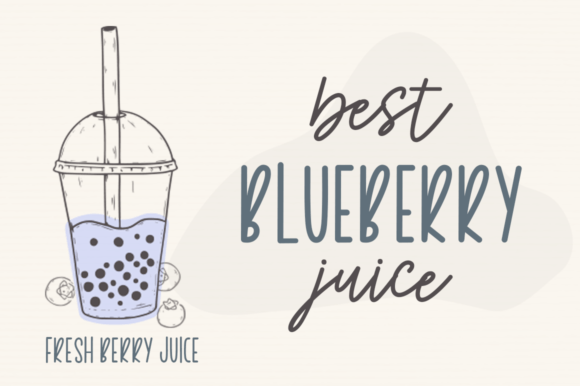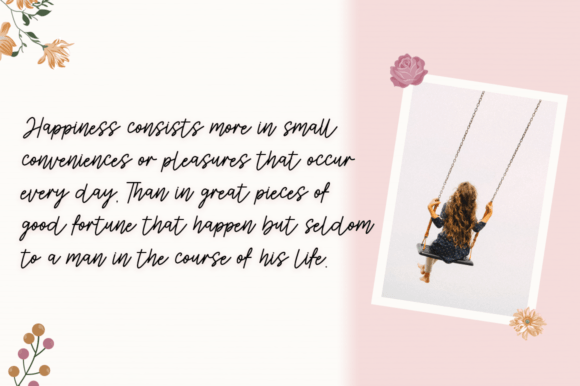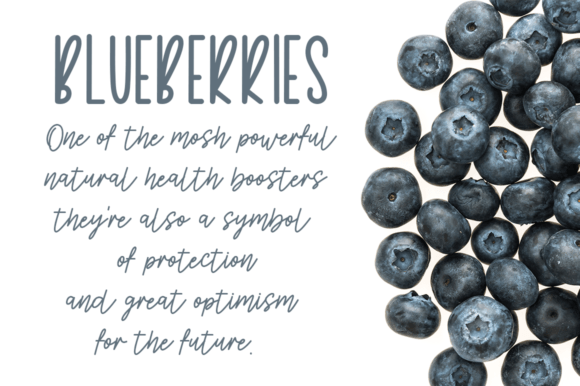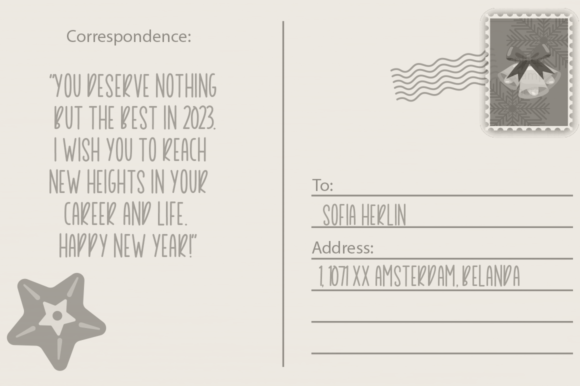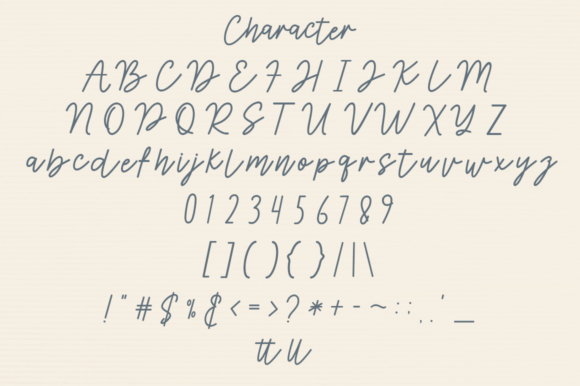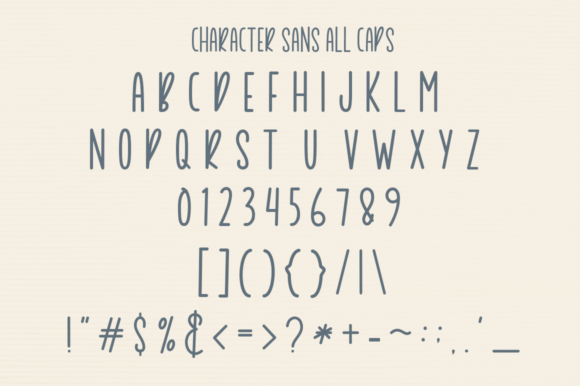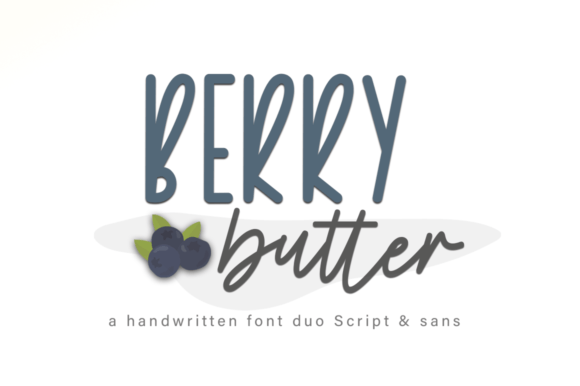
The Berry Butter Font: A Sweet Addition to Your Design Toolbox
Have you ever been working on a design project, and suddenly, you’re stuck on finding the perfect font? I recall a recent experience where I was creating a set of thank you cards for a craft fair, and my usual go-to fonts just weren’t cutting it. That’s when I stumbled upon the Berry Butter font, a cute and unique handwritten and sans serif duo font that instantly elevated my designs.
An Honest Review of Berry Butter Font
So, what makes Berry Butter font so special? Let’s dive into the good stuff and a few quirks I’ve discovered.
What I Love About Berry Butter Font ✨
- ✅ Unique and playful handwritten and sans serif combination
- ✅ Perfect for a variety of designs, from thank you cards to business cards
- ✅ Easy to read and understand, even in smaller font sizes
- ✅ Great for adding a personal touch to your designs
While Berry Butter font is an excellent addition to any design toolbox, there are a few things to keep in mind:
- 🤔 Some users might find the font a bit too playful for very formal designs
- ⚠️ Limited availability of stylistic alternates, which might be a drawback for some users
The Backstory Behind Berry Butter Font
While I couldn’t find any information on the exact design process, it’s clear that Berry Butter font was created with love and attention to detail. The designer likely wanted to create a font that would bring a smile to users’ faces and add a touch of whimsy to their designs.
| Font Name | Berry Butter Font |
| Author | Akmalotype |
| Is Berry Butter font suitable for body text? | While Berry Butter font is easy to read, it’s better suited for headings and titles. |